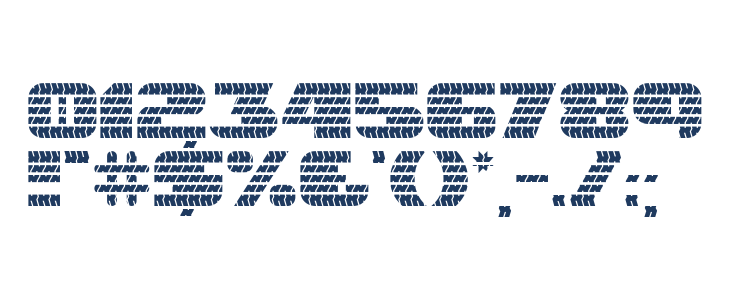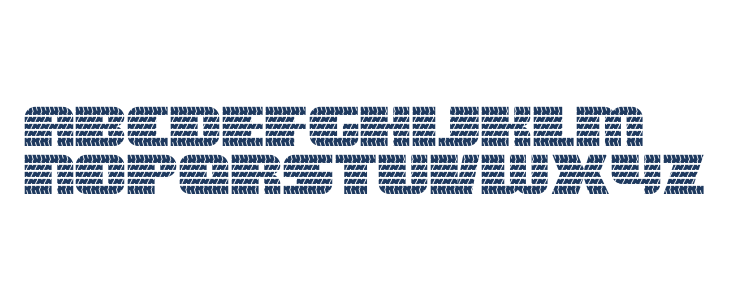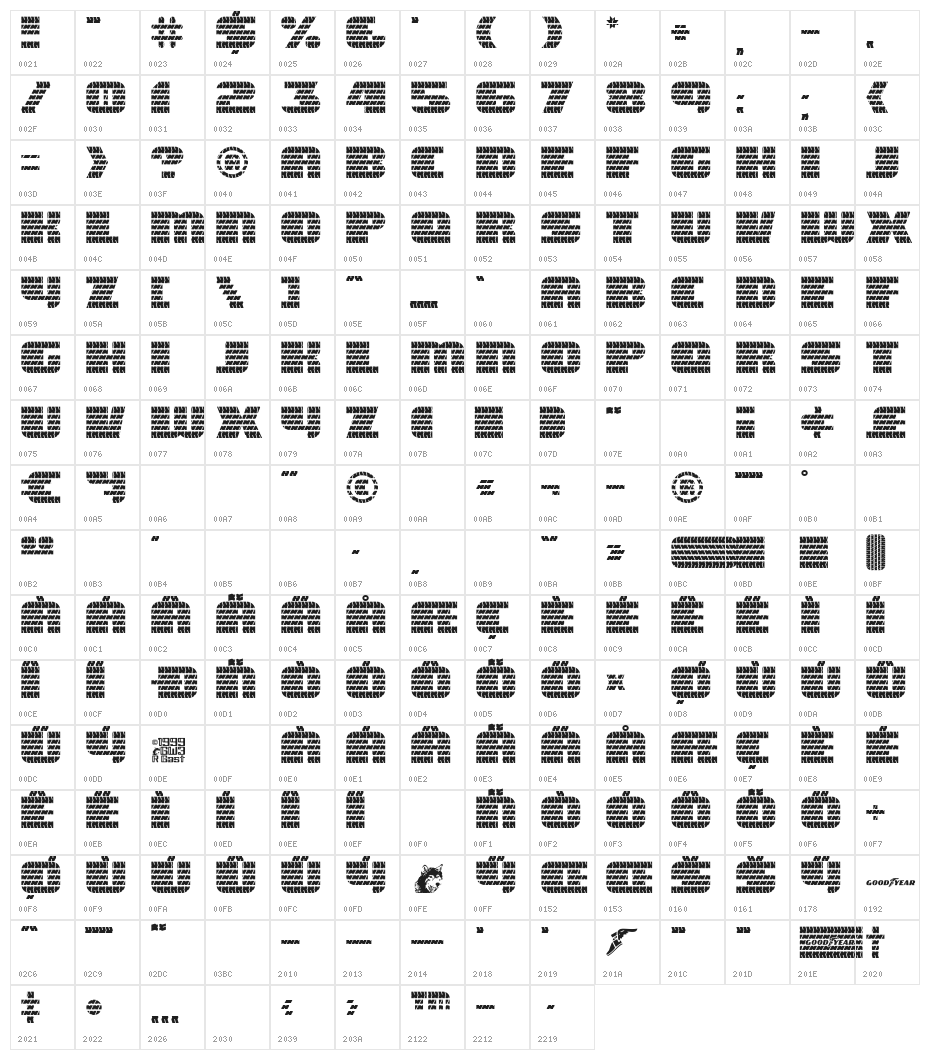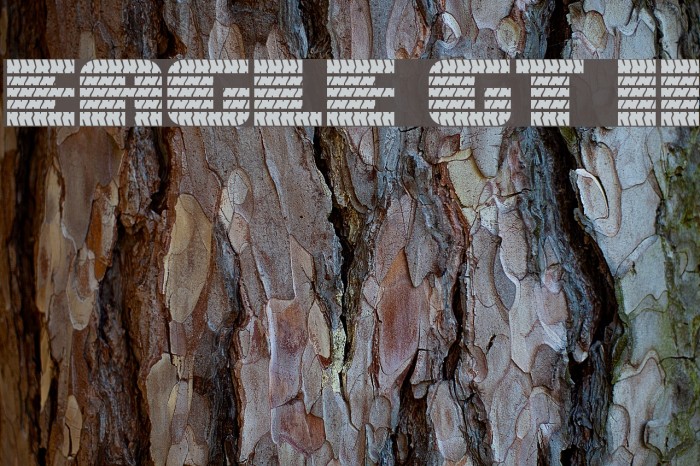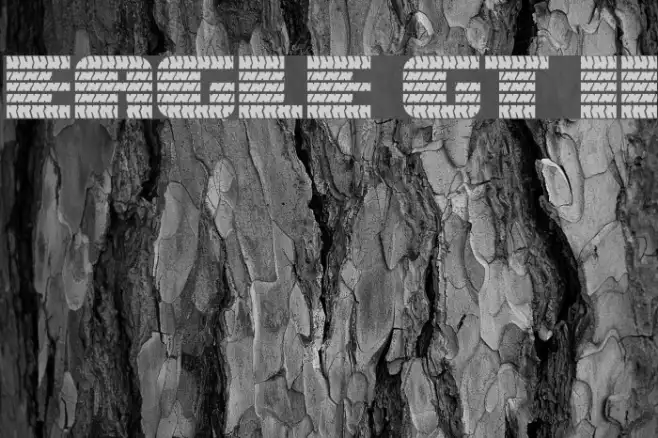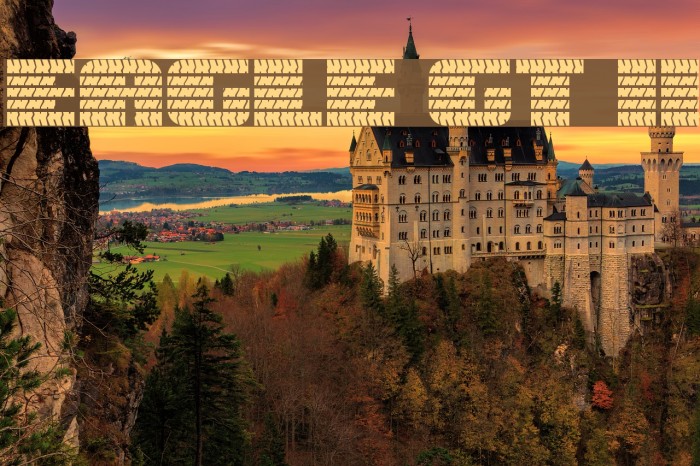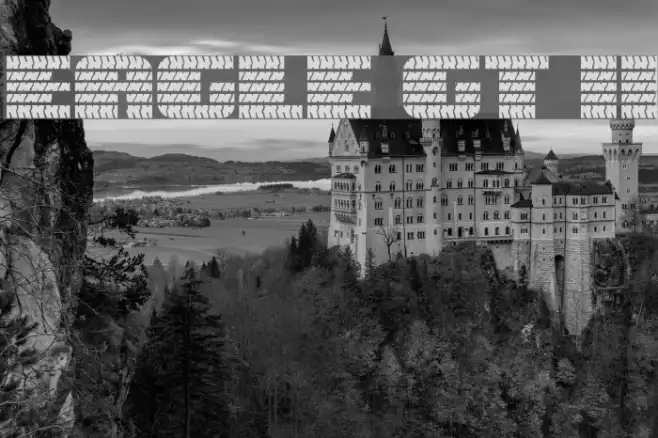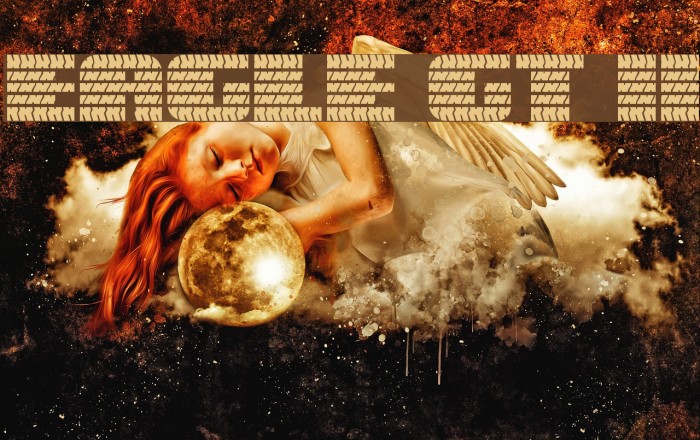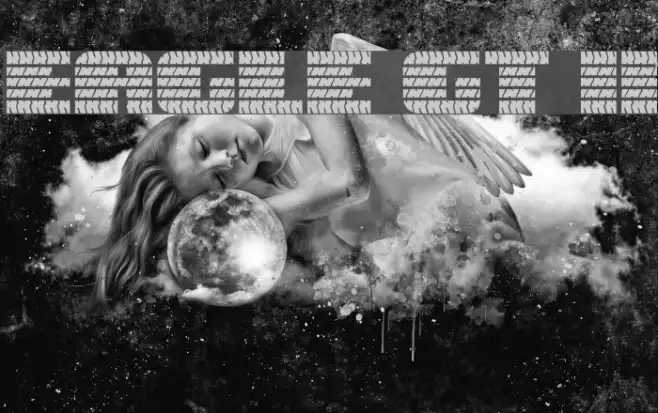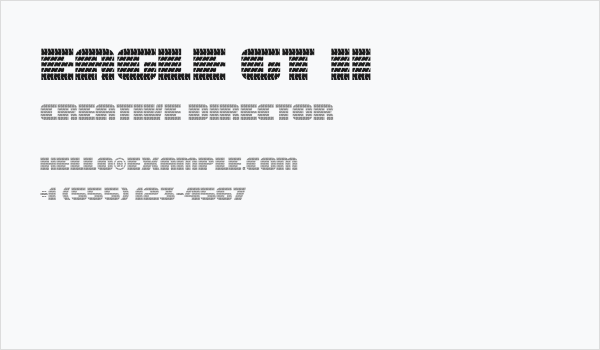
Eagle GT II Font
Eagle GT II Description
This font features a bold, distinctive design with a pattern reminiscent of tire treads, creating a rugged and industrial aesthetic. Each character is composed of segmented lines that mimic the texture and appearance of tire tracks, providing a unique visual impact. The uppercase and lowercase letters maintain a consistent style, ensuring uniformity across the typeface. Numbers and special characters are equally stylized, making them suitable for thematic designs. The font's strong and bold appearance makes it ideal for projects that require a robust and dynamic look.
| Overall Style | Industrial, Rugged |
| Proposed Projects | Ideal for automotive branding, sports team logos, event posters, and merchandise designs that require a strong, dynamic appearance. |